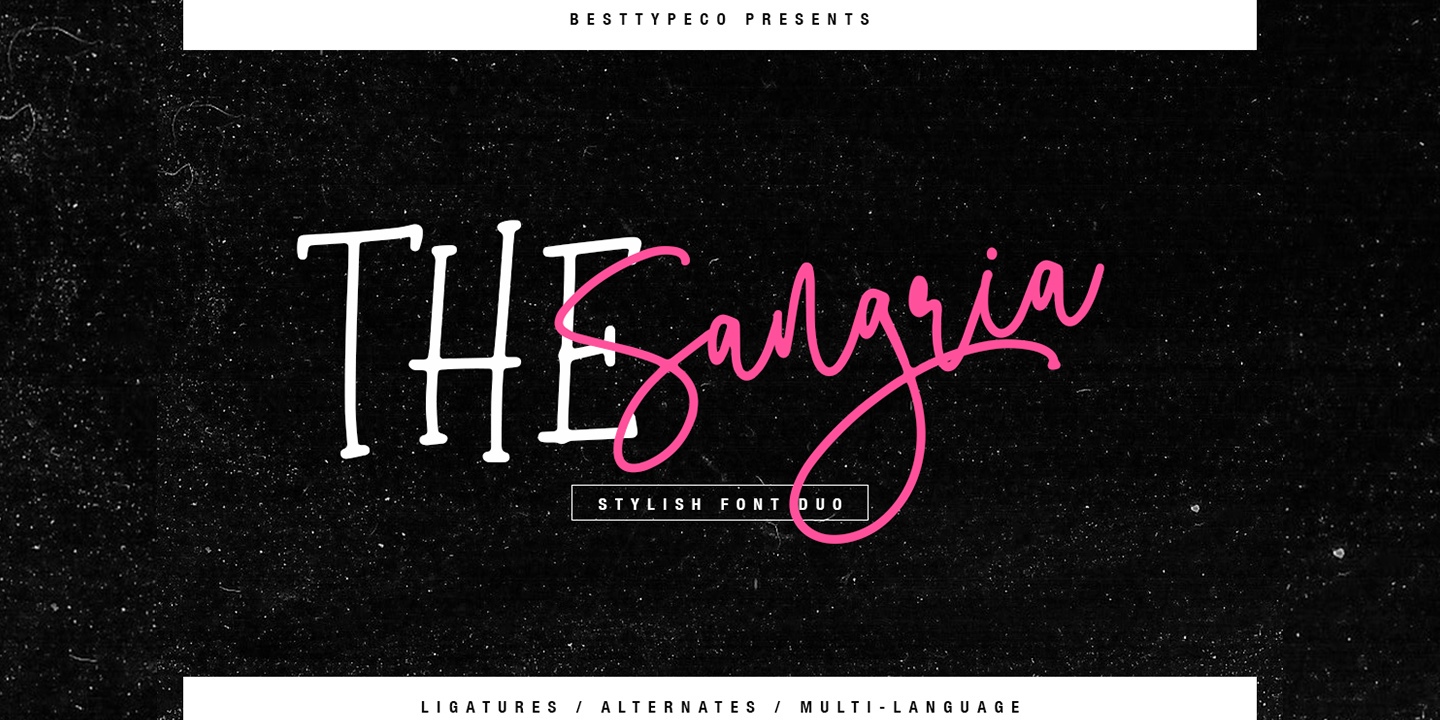
The Sangria Font
The Sangria Font is ideal for Spanish tapas restaurants, Mediterranean wine bars, flamenco dance studios, Spanish cultural festivals, Latin music venues, vineyard tasting rooms, Spanish cooking classes, Iberian travel agencies, Latin celebration invitations, and authentic Spanish cuisine branding. This vibrant typeface brings Mediterranean warmth and Spanish passion to any culturally-inspired design project.
The Sangria Font is exciting because it captures the festive spirit and passionate warmth of Spanish culture, featuring flowing letterforms that evoke the celebratory atmosphere of Spanish fiestas, the rich flavors of Mediterranean cuisine, and the joyful social traditions that make Spanish culture irresistibly inviting. Its spirited character instantly conveys celebration, warmth, and cultural authenticity.
The Sangria Font family includes Light, Regular, Medium, and Bold weights with Spanish-inspired alternates, festive flourishes, Mediterranean ornamental elements, and cultural decorative glyphs that enhance the Spanish aesthetic, providing cultural designers with authentic tools for creating typography that celebrates the vibrant spirit of Spanish and Latin traditions.
Mediterranean hospitality designers love The Sangria Font for its exceptional ability to evoke Spanish cultural themes and create immediate associations with festive gatherings through carefully crafted letterforms. The font's celebratory character and cultural details instantly transport viewers to Spanish plazas, tapas bars, and the warm social atmosphere that defines authentic Spanish hospitality and Mediterranean lifestyle.
The cultural authenticity of The Sangria Font draws inspiration from Spanish calligraphy traditions, flamenco artistry, and the rich visual heritage of Iberian culture, making it particularly effective for restaurants, cultural venues, and entertainment brands seeking to establish authentic connections with Spanish and Latin cultural traditions. Hospitality teams working on Mediterranean experiences find this font essential.
Whether used for authentic Spanish restaurants, flamenco performance venues, or Mediterranean cultural festivals, The Sangria Font delivers the perfect synthesis of cultural authenticity and festive warmth. Its Spanish appeal and celebratory spirit make it an indispensable choice for brands that celebrate Latin culture, Mediterranean hospitality, and the passionate joy of Spanish traditions and social celebrations.